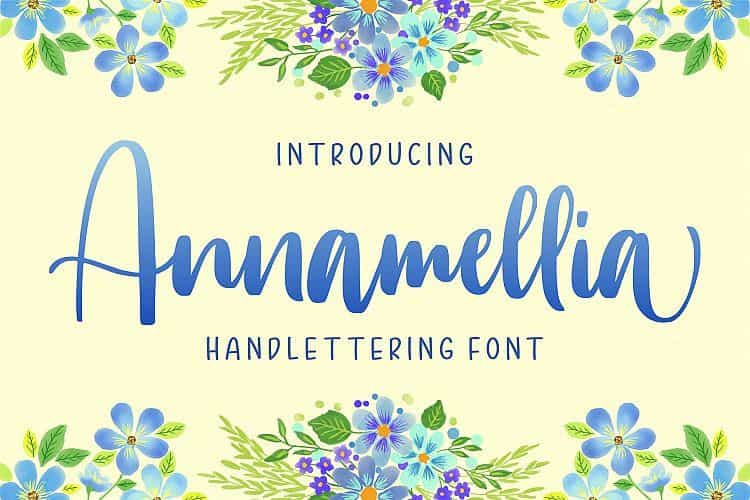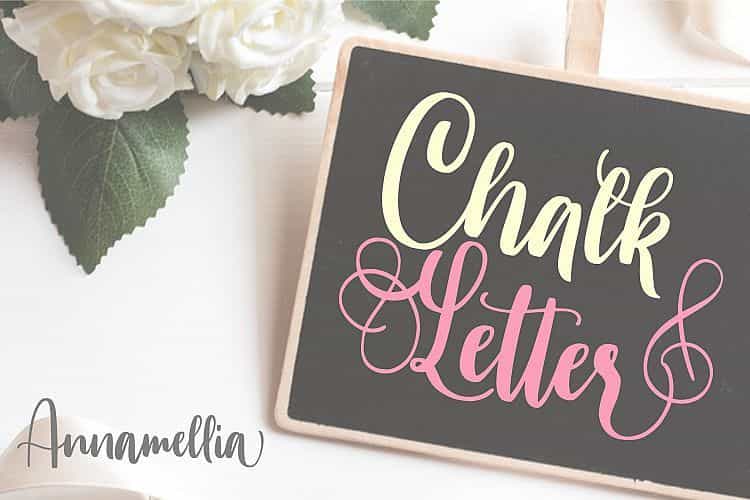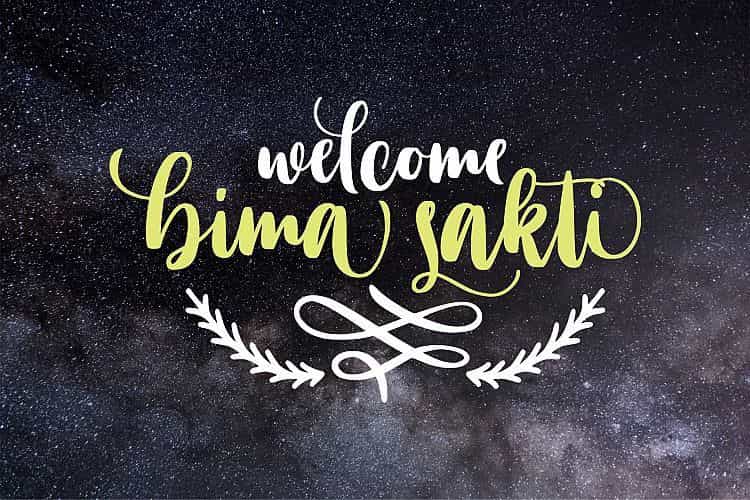
Annamellia Font is a modern script typeface. Annamellia is a lovely and timeless handwritten font. This is a simple, light hand lettered & fun script font. Has a perfectly paired complimentary marker font, and a super handy set of bonus Swash. You can combine to get amazing results.